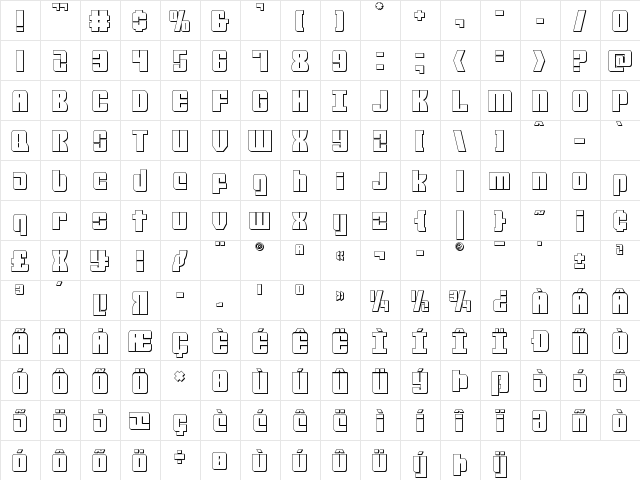
Mobile Infantry 3D Regular Font Preview
Mobile Infantry 3D Regular
Mobile Infantry 3D Regular Font Details
Design Context for Mobile Infantry 3D Typeface
Mobile Infantry 3D is a composed and adaptable typeface that performs quietly and consistently across a wide range of design contexts.
Pro Tip: Use Mobile Infantry 3D in both headline and body roles to test its range before committing to a single application.